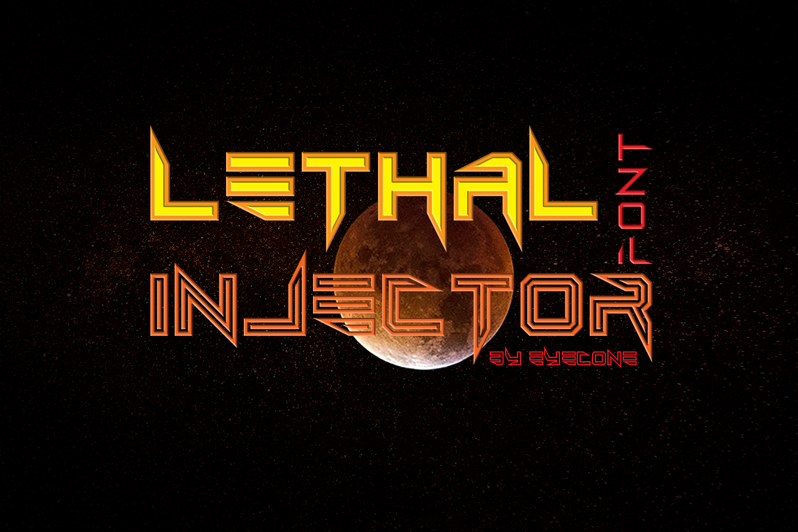
Lethal Injector Layered Typeface
Lethal Injector is a decorative layered family which comes in 10 weights: bold, bold italic,regular. regular italic, thin, thin italic,hollow, hollow italic, inline and inline italic. Its style will give all your designs a futuristic result.